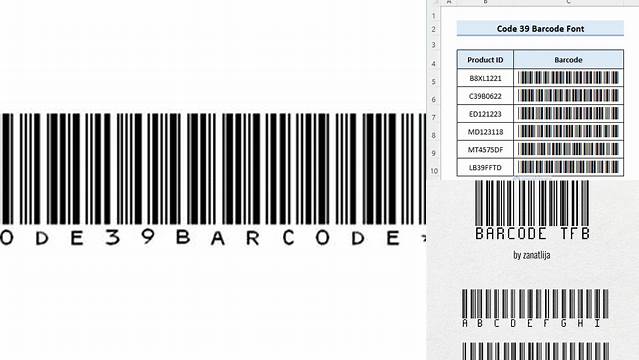
Free Barcode Font Code 39: A Comprehensive Guide
Understanding Code 39 Barcode Font
So, you're diving into the world of barcodes, huh? Excellent choice! Let's kick things off with the basics of Code 39 barcode fonts. This is one of the most commonly used barcode types out there, and for good reason. It's versatile, reliable, and relatively easy to implement. Code 39 is a variable-length, self-checking barcode symbology. This means each character contains the necessary information to validate itself, reducing the risk of errors during scanning. Unlike some other barcode types, Code 39 can represent both numbers (0-9) and uppercase letters (A-Z), along with a few special characters like space, hyphen (-), period (.), dollar sign ($), slash (/), plus sign (+), and percent (%). This makes it incredibly flexible for various applications, from inventory management to identification badges. When implementing Code 39, it's crucial to have a reliable barcode font. Many free options are available, but you need to ensure they are accurate and compatible with your systems. Choosing the right font ensures that your barcodes are scannable and that your data is correctly interpreted. Trust me, you don't want to end up with a system that misreads your barcodes! You can find these free barcode fonts from various online sources, but always double-check their validity. Consider testing a few different fonts to see which one works best with your specific hardware and software setup.
The Importance of Free Barcode Fonts
Generating Barcodes with the Code 39 Font
So, you've got your free Code 39 font installed β now what? Time to start generating some barcodes! The process is actually pretty straightforward. Open up your favorite word processor, spreadsheet program, or barcode generator software. Select the Code 39 font from the font list. Type the data you want to encode, making sure to include the start and stop characters (usually asterisks). For example, if you want to encode the number "12345," you'd type "12345." Adjust the font size as needed to ensure the barcode is the right size for your application. Larger font sizes will result in wider barcodes. Print out your barcode and test it with a barcode scanner. If it doesn't scan, double-check that you've entered the data correctly and that the font size is appropriate. Some barcode generators offer additional features, such as the ability to add check digits or customize the barcode's appearance. If you need more control over the barcode generation process, consider using a dedicated barcode generator tool. These tools often provide more advanced options and can help you create high-quality barcodes that meet your specific requirements. Remember, practice makes perfect! The more you generate barcodes, the better you'll become at it.
Alright, let's be real β sometimes things don't go as planned. Here are some common issues you might encounter when using a free Code 39 font, and how to troubleshoot them: Barcode won't scan: First, make sure you've included the start and stop characters (*). Also, check that the font size is large enough and that the barcode is printed clearly. If the barcode is still not scanning, try a different barcode scanner or adjust the scanner's settings. Font doesn't appear in the font list: Make sure you've installed the font correctly. On Windows, try restarting your computer. On macOS, try opening Font Book and verifying that the font is enabled. Barcode is too small or too large: Adjust the font size to make the barcode the right size for your application. You can also adjust the barcode's width and height in your barcode generator software. Barcode is distorted or blurry: Make sure your printer is set to the correct resolution and that you're using high-quality paper. Also, check that the font file is not corrupted. If you're still having trouble, try downloading the font from a different source. Remember, don't be afraid to experiment and try different solutions. And if all else fails, there are plenty of online resources and forums where you can get help from other barcode enthusiasts.
Advanced Barcode Font Techniques
Okay, so you've mastered the basics of free Code 39 fonts. Now, let's dive into some more advanced techniques to really up your barcode game! One cool trick is to use barcode generator software to create barcodes dynamically. This means you can generate barcodes on the fly, based on data from a database or other source. This can be incredibly useful for automating your barcode creation process. Another advanced technique is to use barcode fonts in web applications. This allows you to generate barcodes directly in the browser, without requiring any server-side processing. There are several JavaScript libraries available that make this easy to do. You can also customize the appearance of your barcodes by adding text, logos, or other graphics. This can help you create barcodes that are both functional and visually appealing. Just be careful not to add too much clutter, as this can make the barcode difficult to scan. Finally, consider using barcode verification software to ensure that your barcodes meet industry standards. This software can analyze your barcodes and identify any potential issues that could affect their readability. By using these advanced techniques, you can take your barcode skills to the next level and create professional-quality barcodes that meet your specific needs.
Code 39 vs. Other Barcode Types
So, Code 39 is great, but how does it stack up against other barcode types? Let's take a look! Code 128: This is a higher-density barcode that can encode all 128 ASCII characters. It's more complex than Code 39 but can store more data in the same amount of space. UPC/EAN: These are the barcodes you see on most retail products. They're designed for point-of-sale scanning and are not as flexible as Code 39. QR Codes: These are two-dimensional barcodes that can store a large amount of data. They're often used for mobile applications and can be scanned with a smartphone camera. Each barcode type has its own strengths and weaknesses. Code 39 is a good choice for general-purpose applications where you need to encode alphanumeric data. Code 128 is better for situations where you need to store a lot of data in a small space. UPC/EAN is the standard for retail products, and QR Codes are great for mobile applications. When choosing a barcode type, consider the amount of data you need to encode, the size of the barcode, and the scanning environment. And of course, make sure the barcode type you choose is supported by your hardware and software. Understanding the differences between barcode types will help you make the right choice for your specific needs.
Best Practices for Using Code 39 Barcode Fonts
Using Code 39 barcode fonts effectively involves more than just installing and printing. Here are some best practices to ensure your barcodes are accurate, scannable, and reliable: Choose the Right Font: Not all Code 39 fonts are created equal. Look for fonts that are specifically designed for barcode generation and that have been tested for accuracy. Use the Correct Syntax: Code 39 barcodes require start and stop characters, typically asterisks (*). Make sure you include these characters when encoding your data. Adjust the Font Size: The font size affects the width and height of the barcode. Choose a font size that is appropriate for your application and that ensures the barcode is easily scannable. Print at High Resolution: Print your barcodes at a high resolution to ensure they are clear and sharp. Avoid printing at low resolutions, as this can make the barcode difficult to scan. Test Your Barcodes: Always test your barcodes with a barcode scanner before deploying them. This will help you identify any potential issues and ensure that your barcodes are working correctly. Protect Your Barcodes: Protect your barcodes from damage and wear. Laminate them or use a barcode label printer to create durable labels. By following these best practices, you can ensure that your Code 39 barcodes are accurate, scannable, and reliable.
Free Barcode Font Code 39 for Inventory Management
Inventory management is one area where free barcode fonts can really shine. Imagine being able to quickly scan items in and out of your warehouse without having to manually enter data. That's the power of barcodes! With a Code 39 barcode font, you can create barcodes for your products and track them as they move through your supply chain. This can help you reduce errors, improve efficiency, and gain better visibility into your inventory levels. To get started, you'll need a barcode scanner, a barcode printer, and a software program that can generate barcodes. Many inventory management systems come with built-in barcode generation capabilities. Simply enter the product information into the system, and it will automatically generate a barcode for you. Print out the barcodes and attach them to your products. Then, use the barcode scanner to scan the barcodes as you receive, store, and ship items. The inventory management system will automatically update your inventory levels based on the barcode scans. By using free Code 39 barcode fonts for inventory management, you can streamline your operations, reduce costs, and improve customer satisfaction.
Using Free Barcode Font Code 39 for Asset Tracking
Asset tracking is another great use case for free barcode fonts. Whether you're tracking computers, furniture, or equipment, barcodes can help you keep tabs on your assets and prevent loss or theft. With a Code 39 barcode font, you can create barcodes for your assets and track their location, status, and maintenance history. This can help you improve asset utilization, reduce downtime, and ensure compliance with regulations. To implement asset tracking with barcodes, you'll need a barcode scanner, a barcode printer, and an asset tracking software program. The software program will allow you to create asset records, assign barcodes to assets, and track asset movements. Simply scan the barcode on an asset to view its details, update its status, or record maintenance activities. You can also generate reports to track asset utilization, identify underutilized assets, and plan for asset replacements. By using free Code 39 barcode fonts for asset tracking, you can improve asset management, reduce costs, and increase accountability.
Alternative Barcode Symbologies to Free Barcode Font Code 39
While free Code 39 barcode fonts are widely used and versatile, there are several alternative barcode symbologies that may be more suitable for certain applications. Some popular alternatives include Code 128, UPC/EAN, and QR codes. Code 128 is a higher-density barcode that can encode all 128 ASCII characters. UPC/EAN codes are commonly used in the retail industry for product identification. QR codes are two-dimensional barcodes that can store a large amount of data and are often used in mobile applications. When choosing a barcode symbology, consider the amount of data you need to encode, the size of the barcode, and the scanning environment. Also, consider the compatibility of the symbology with your hardware and software systems. Evaluate the pros and cons of each symbology before making a decision. Choosing the right symbology can significantly improve the efficiency and accuracy of your barcode systems.